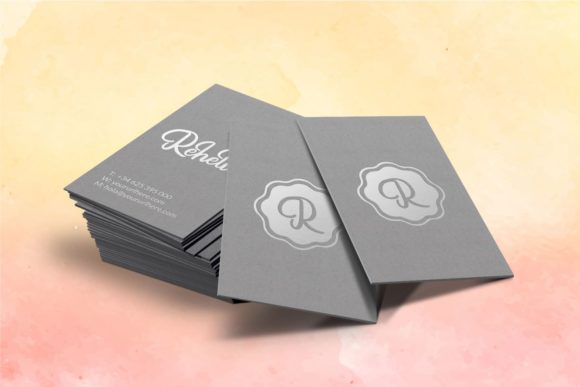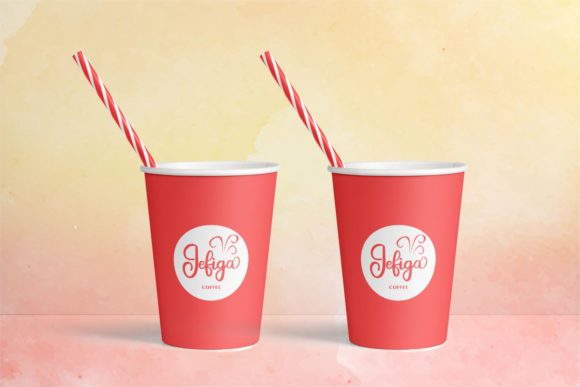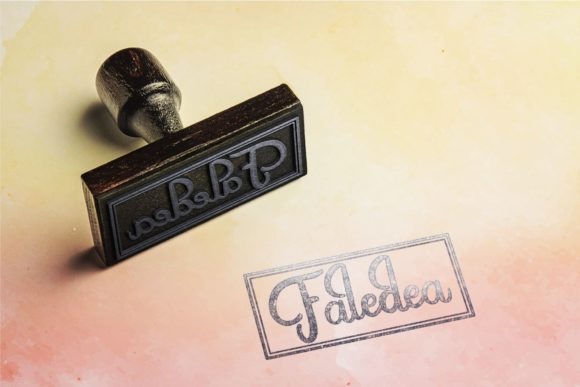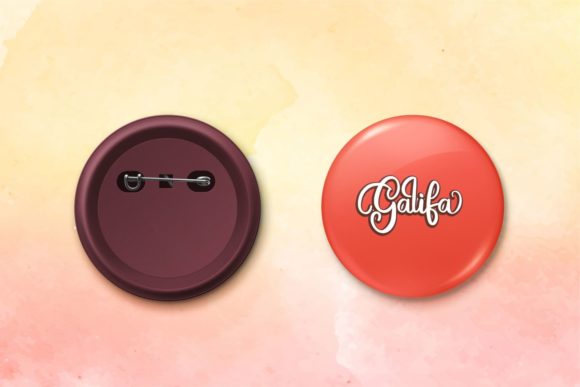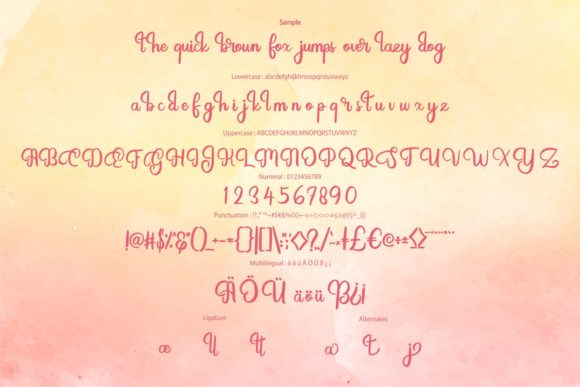
Enhelsa Font
About Enhelsa Font
Enhelsa is a unique handwritten font. A little bit quirky, this font looks incredibly adept on a wide variety of contexts!